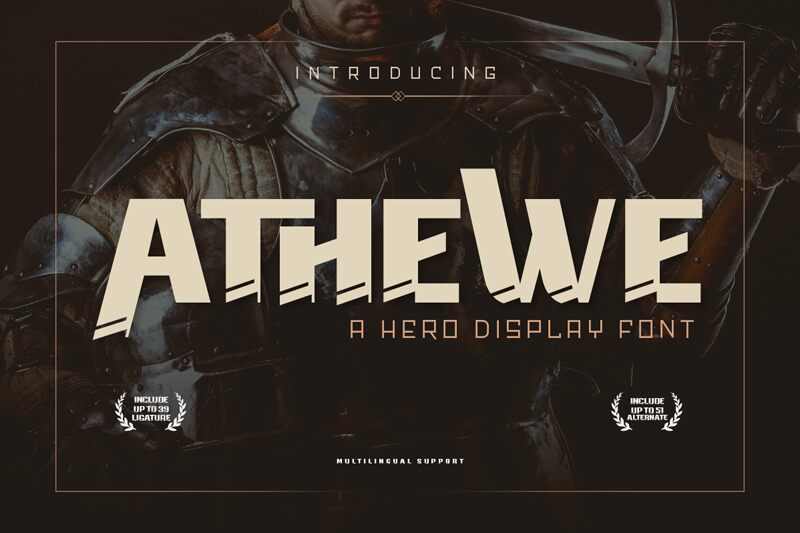
Athewe font family by twinletter consists of 2 feathered and dynamic typefaces for those who want to make an impactful typographic statement. Heavily worked, this free font will instantly transform any bland design into something absolutely memorable. Whether you want to craft a compelling poster or logo design, Athewe may be just the font you need for the job. Assertive, sharp, eye-catching, and dramatic, it carries what most other structured fonts lack: the power to captivate your target audience.
So, do you want your texts to stand out and command attention? Are you looking for that one font that says it all? Give the Athewe font family by twinletter a try. It was made especially for those in search of a structured letter type with an energetic personality, mysterious appearance, and dynamic vibes.
Quickly make your designs look modern and charming with Athewe through labels, badges, wedding invites, or apparel brand advertising. It’s an excellent ally for sophisticated magazine covers, website headlines, and food packaging typography.